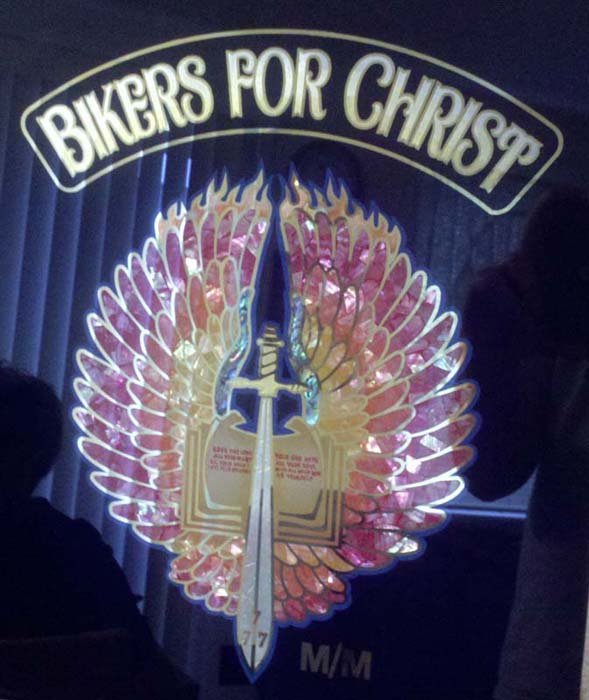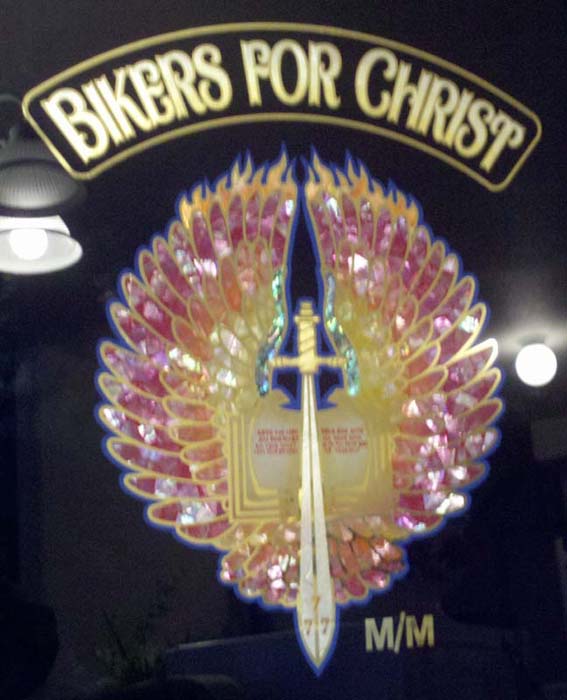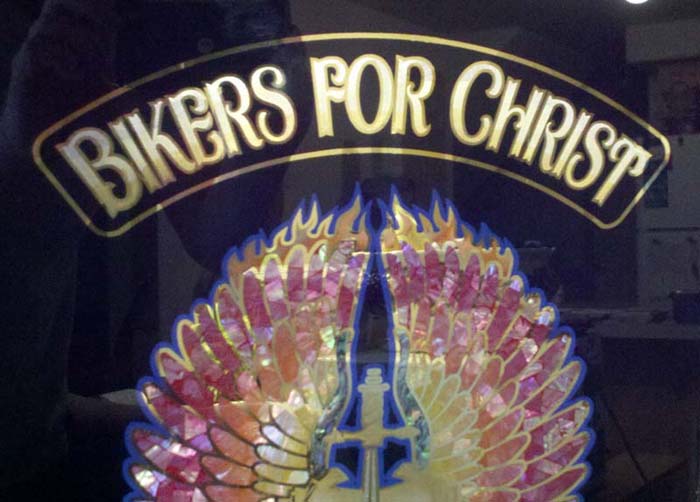
This is just a smaller piece I did for one of the club members. He wanted lots of MOP after looking
at some of my other pieces. It's backed up with the club colors as they are on thier jackets.
W A A Y cool Jerry. Love that shell.
It is hard to get good pix of glass stuff, The light meter has a hard time deciding when ther is a lot of relctive metal, and the auto-focus seems to prefer to use the reflection, not the glass. I have tons of pictures of a reflected me, in crisp focus, on top of a fuzzy image of the sign I wanted. Maybe Mike Jackson has some hints???
To photograph glass and gold, the main thing to remember is the mirror like reflective quality of both. If you and other junk are in front of the glass, you'll likely get those reflections. It helps to photograph with the aid of a tripod.
I shot this image still hanging on the wall while I sat in a chair, shooting slightly up. The ceiling is white. Because I was slightly below and slightly off to the side, the image was keystoned and distorted. I used the perspective crop tool in Photoshop and squared it back up.
Sometimes I hang either a white or amber colored sheet behind me. That gives a solid, consistent reflection. It is easy to look through the viewfinder and locate reflections and distractions. A little shifting up or down or left or right will usually eliminate them. The same concept works in the field. Just have a couple of people hold a sheet up behind you.